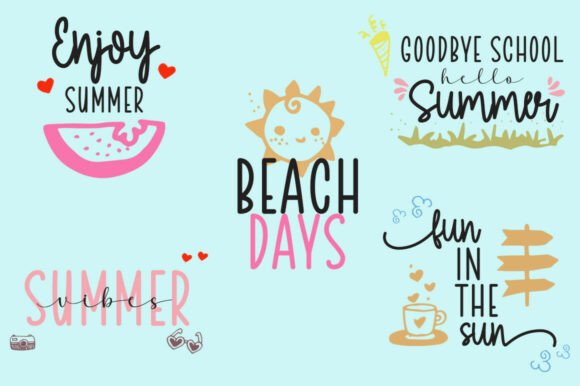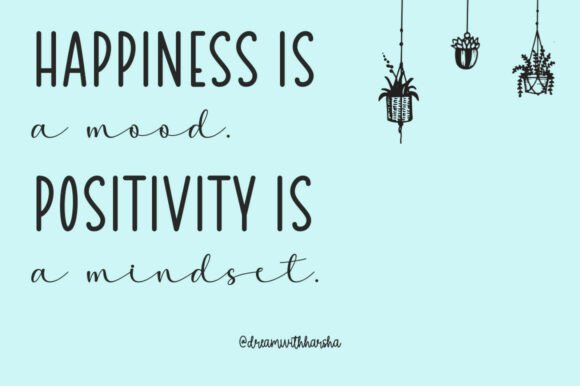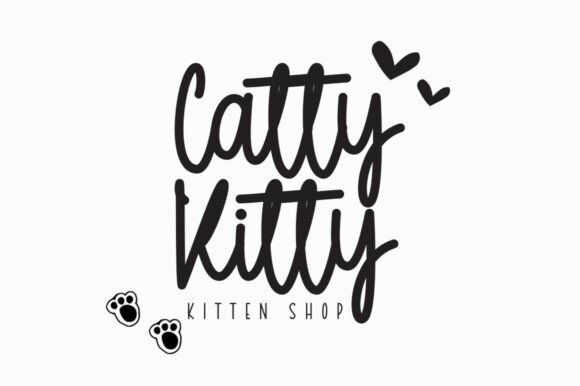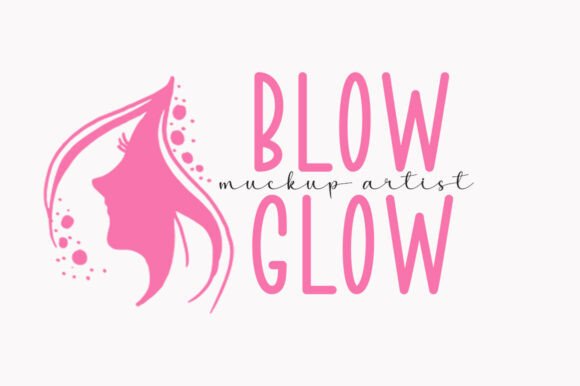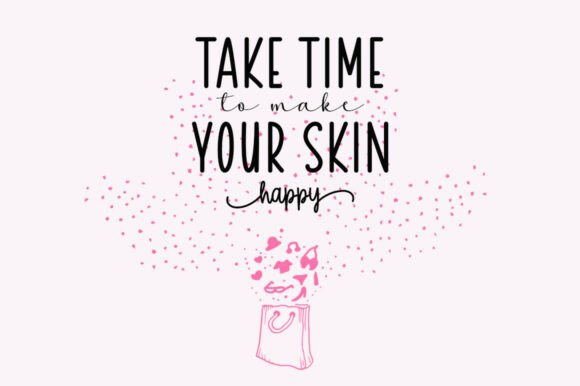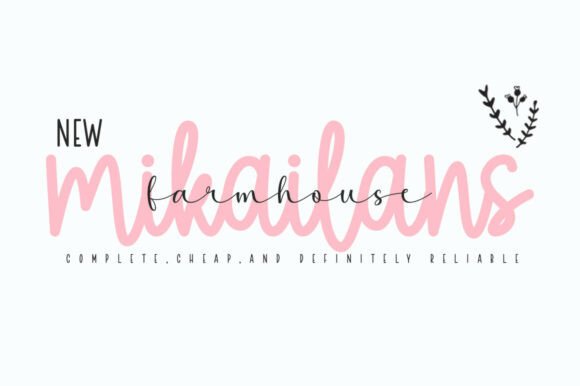
The Perfect Pair: Dove and Love Font
Do you remember that moment when you finally found the perfect font to match your creative vision? It’s like the universe aligned, and everything just clicked. That’s exactly what happened for us when we discovered the Dove and Love Font.
This lovely font trio consists of a handwritten, script, and sans serif font, carefully designed to work together in harmony. Whether you’re crafting a greeting card, a wedding invitation, or a custom art piece, Dove and Love Font is the perfect companion to add a touch of elegance and whimsy. As a designer, you’ll appreciate the ease of use, thanks to its PUA encoding, which allows you to access all glyphs and swashes with just a few clicks. With Dove and Love Font, you’ll be able to create stunning designs that reflect your unique style and flair.
Dove and Love Font Key Features
- Font Family: Dove and Love Font is a unique, handwritten font with a romantic and elegant feel.
- Unique Characteristics: The font features swashes, flourishes, and connecting strokes, adding a personal touch to any design.
Dove and Love Font Review
I recently had the chance to work with the Dove and Love Font, and I must say it’s a unique and charming addition to any design project. ✨ The font’s elegant, handwritten feel makes it perfect for adding a touch of romance or whimsy to your work.
- ✨ The font’s fluid connections between letters make it a joy to read and write.
- ✨ The variety of weights and styles available allow for a high degree of customization and flexibility.
- ✨ The font’s soft, cursive feel is particularly well-suited for invitations, greeting cards, and other paper-based designs.
However, there are a few limitations to be aware of. ⚠️ The font may not be the best choice for projects requiring a more formal or professional tone, as its playful feel may come across as unprofessional in certain contexts.
Overall, I’m impressed by the Dove and Love Font’s potential and versatility. While it may not be the perfect fit for every project, it’s definitely a valuable addition to any designer’s toolkit. With a little creative experimentation, I’m confident that this font can help bring your designs to life in a unique and captivating way.
The Dove and Love Font is perfect for:
- Love letters and romantic cards
- Valentine’s Day and anniversary celebrations